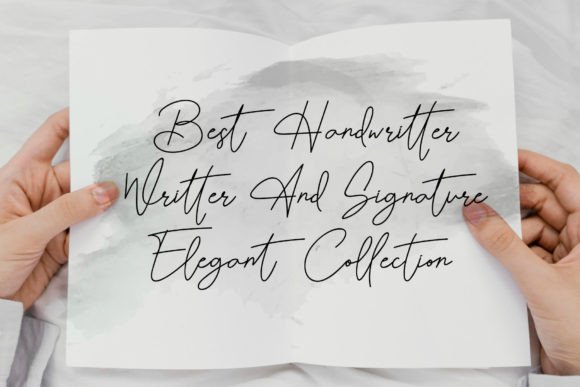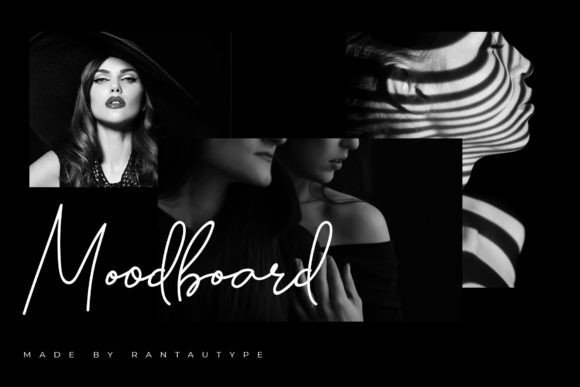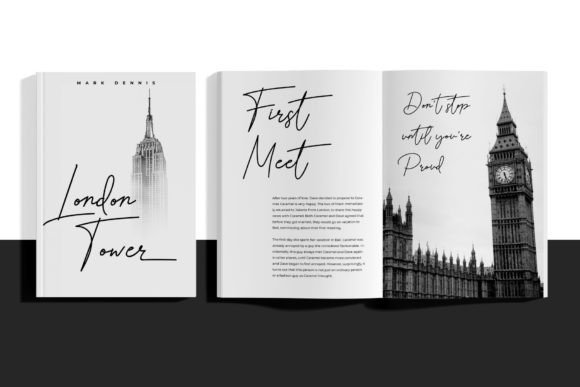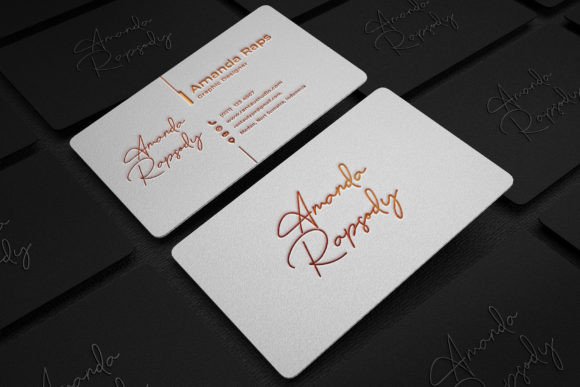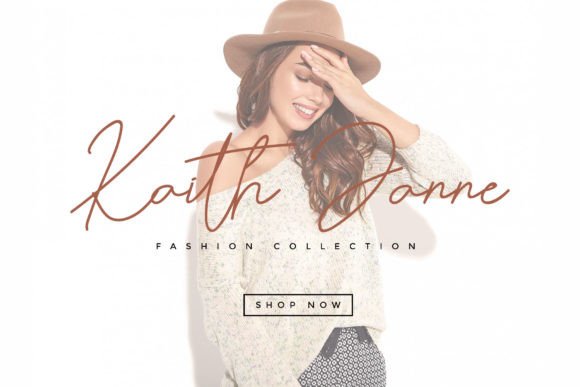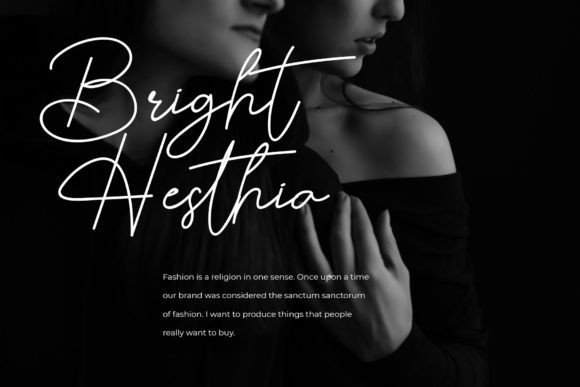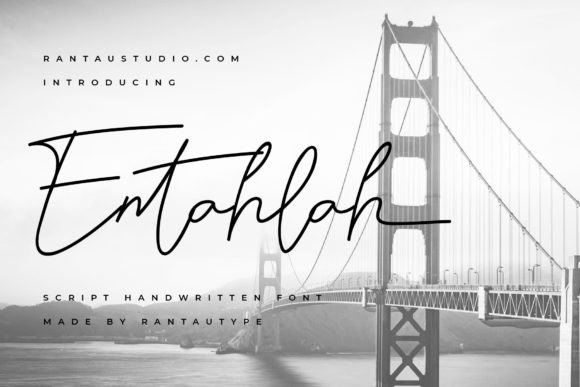
Introducing Entahlah Font: The Ultimate Clean Signature-Style Script Font
Are you a designer or crafter looking for a beautiful and versatile font to elevate your creative projects? Look no further than Entahlah Font, a stunning clean signature-style script font that’s perfect for a wide range of applications. From logos and wedding invitations to romantic quotes, logotypes, posters, social media kits, book covers, t-shirt designs, packaging, and more, Entahlah Font is the perfect choice for anyone seeking a elegant and sophisticated look.
What Makes Entahlah Font So Special?
Entahlah Font is a meticulously crafted font that boasts a clean and modern aesthetic, making it perfect for designers and crafters who want to add a touch of elegance to their work. This font is designed to be highly versatile, allowing you to use it for a wide range of projects, from formal events like weddings and galas to more casual applications like social media graphics and t-shirt designs.
Key Features of Entahlah Font
• Clean Signature-Style Script Font: Entahlah Font features a beautiful, flowing script style that’s reminiscent of handwriting. The clean lines and elegant curves make it perfect for creating sophisticated and eye-catching designs.
• PUA Encoded: Entahlah Font is PUA (Private Use Area) encoded, which means you can access all of the glyphs and swashes with ease. This makes it simple to customize your designs and add unique flourishes.
• Wide Range of Applications: Entahlah Font is perfect for a wide range of projects, including logos, wedding invitations, romantic quotes, logotypes, posters, social media kits, book covers, t-shirt designs, packaging, and more.
Why Choose Entahlah Font?
There are many fonts on the market that claim to be versatile and elegant, but Entahlah Font stands out from the crowd. Here are just a few reasons why:
• Unique and Elegant Design: Entahlah Font features a unique and elegant design that’s sure to turn heads. The clean lines and flowing curves make it perfect for creating sophisticated and eye-catching designs.
• Highly Versatile: Entahlah Font is perfect for a wide range of projects, from formal events to casual applications. This makes it a great addition to any designer’s or crafter’s toolkit.
• Experiment with Different Sizes and Styles: Entahlah Font looks great in a variety of sizes and styles. Experiment with different sizes and styles to find the one that works best for your project.
• Combine with Other Fonts: Entahlah Font pairs well with a variety of other fonts. Try combining it with a bold sans-serif font for a striking contrast.
• Use the Swashes and Glyphs: Entahlah Font features a range of swashes and glyphs that can add a touch of elegance to your designs. Don’t be afraid to experiment with these to create a unique look.